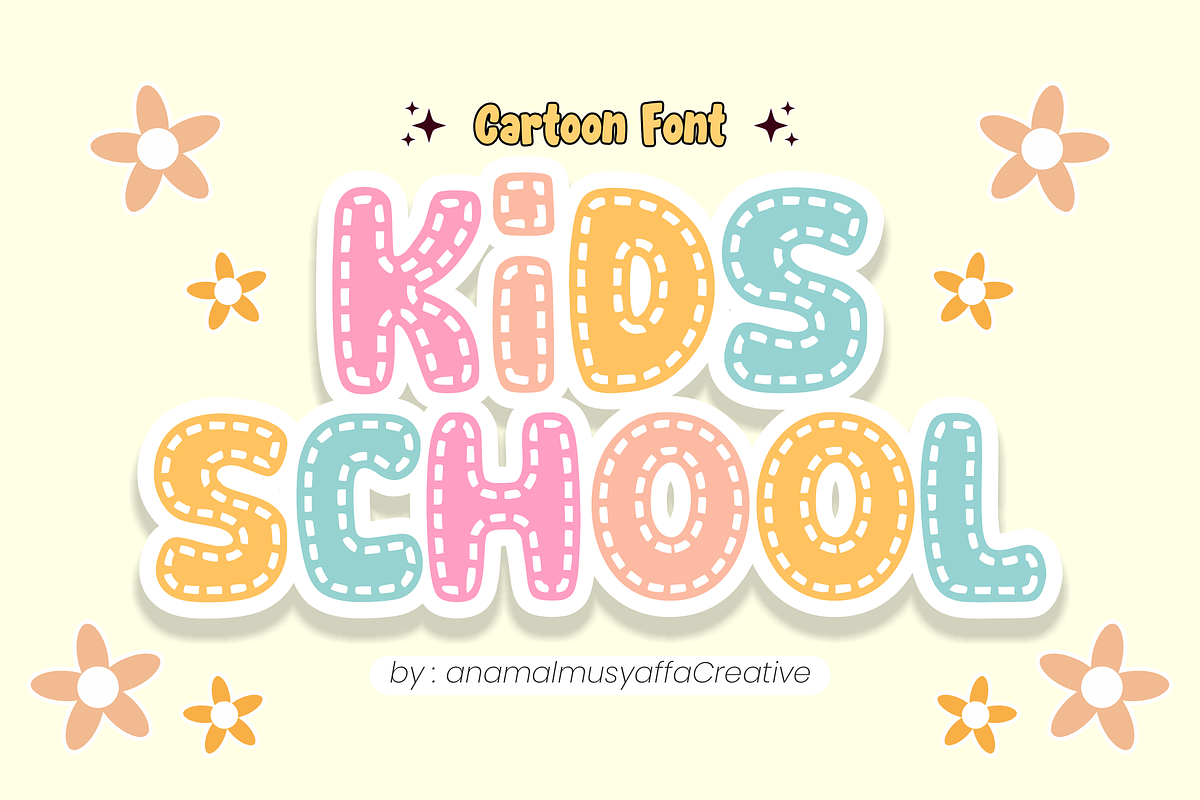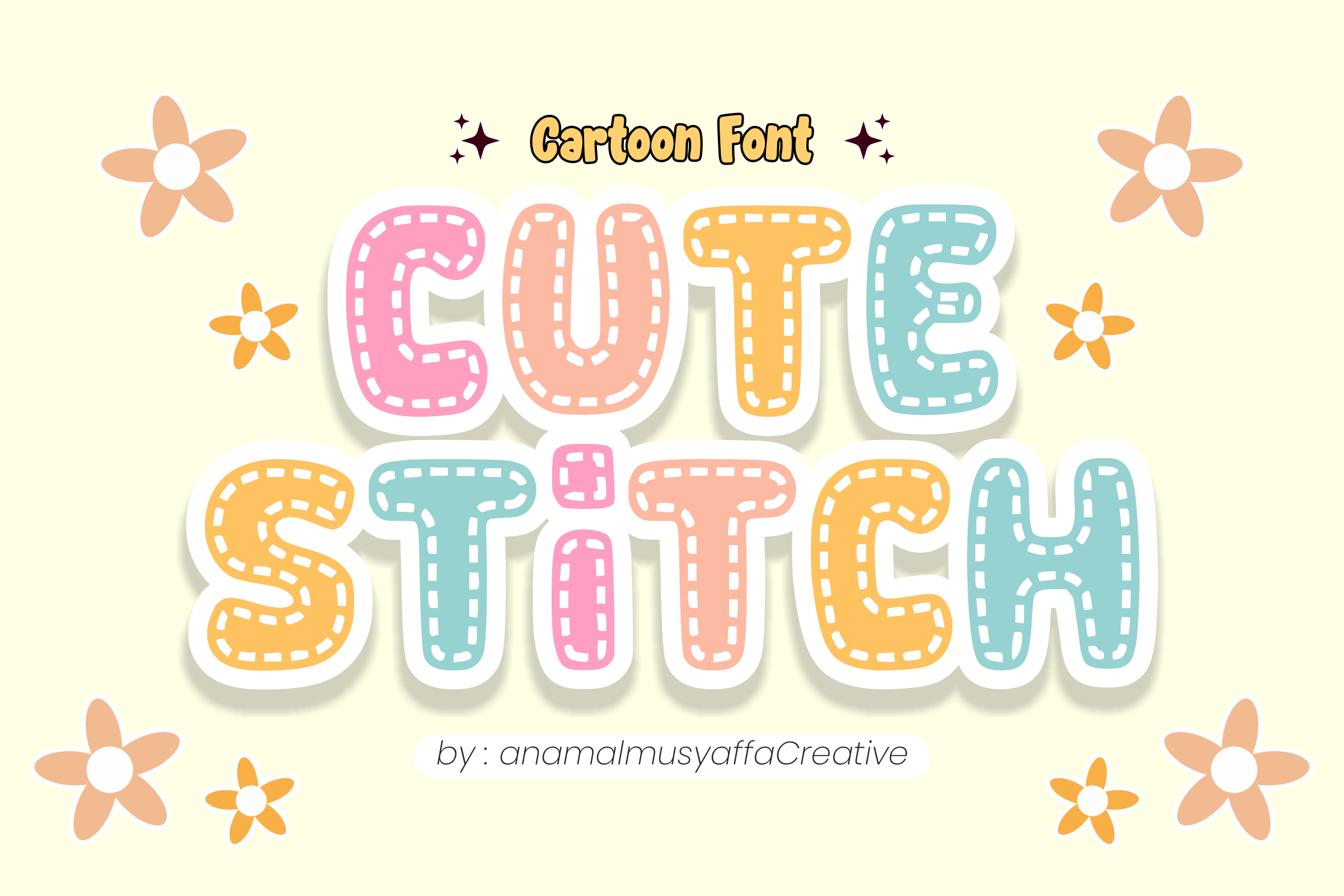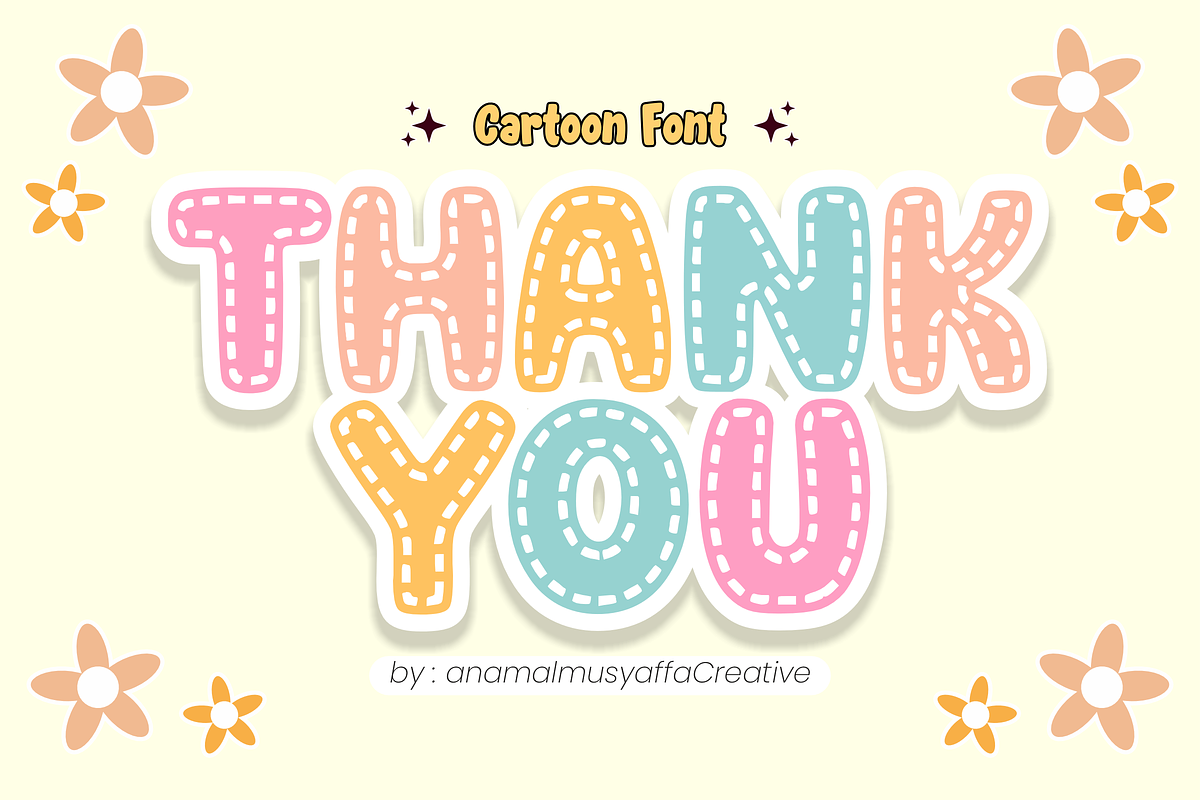
🧵 Cute Stitch - Handcrafted Dotted Sticker Font ✨ Add a touch of handmade warmth to your designs with Cute Stitch! This charming display font features bold, rounded characters adorned with a delicate "stitched" dot pattern. Wrapped in a clean, thick outline, it perfectly mimics the look of high-quality embroidered stickers or handcrafted felt letters.
It’s the "sew" perfect choice for projects that need to feel cozy, crafty, and incredibly sweet!
🌟 Key Features: 🧶 Stitched Uppercase: Bold, chunky letters with a unique dotted "sewing" texture.
🔢 Numbers 0-9: Matching patterned numerals for birthdays, dates, and prices.
📍 Simple Symbols: Essential punctuation to tie your creative projects together.
✂️ Sticker Style: Smooth, high-contrast outlines optimized for Cricut, Silhouette, and print.
🎨 Perfect For: 🧸 Kids & Baby: Nursery wall art, baby shower invites, and custom onesie designs.
✂️ Craft & DIY: Scrapbooking, felt craft templates, and personalized stickers.
🏫 Education: Classroom decor, teacher resources, and school bulletin boards.
🎂 Celebrations: Birthday invitations, gift tags, and party banners.
📱 Social Media: Cozy YouTube thumbnails and aesthetic Pinterest quotes.
Stitch together your best ideas with the Cute Stitch font today!